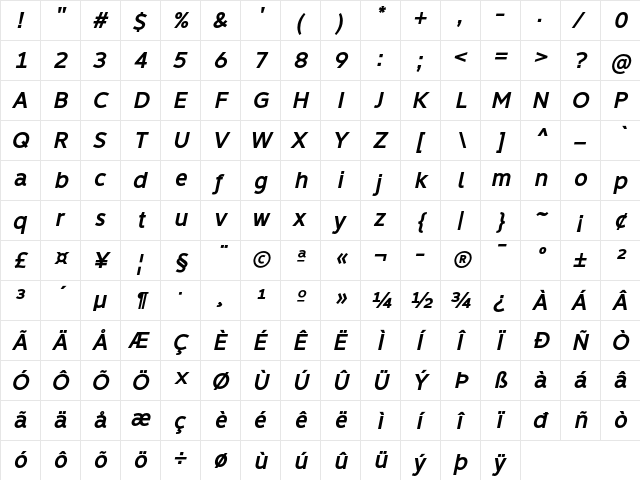
Learn Share Colaborate Bold Italic Font Preview
| Foundry | 7NTypes |
| Designer | Situjuh Nazara |
Design Context for Learn Share Colaborate Typeface
Learn Share Colaborate takes a measured approach to typography — its balanced proportions and neutral character make it a reliable workhorse for both digital and print work. The dynamic lean of this cut emphasises speed and emphasis in any layout. The heavy weight commands attention and anchors typographic hierarchies.
Pro Tip: Try Learn Share Colaborate for annotation and caption copy alongside an upright companion — the contrast in angle creates a dynamic but ordered typographic system.